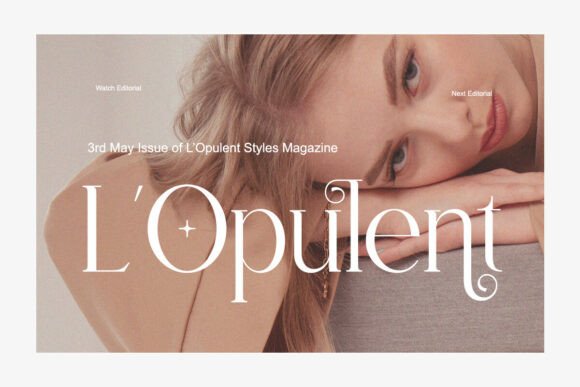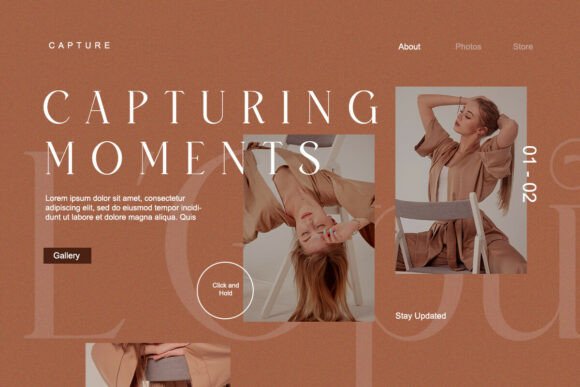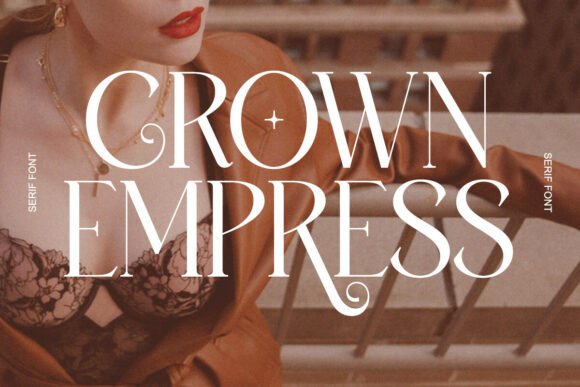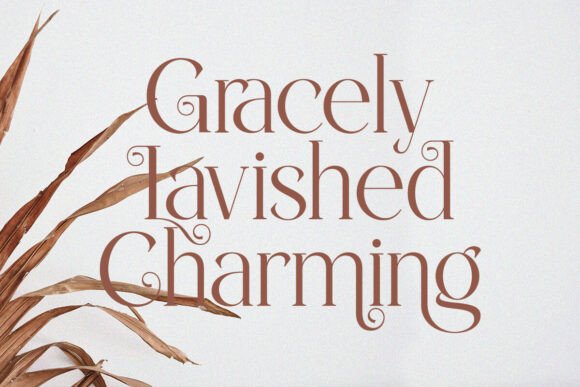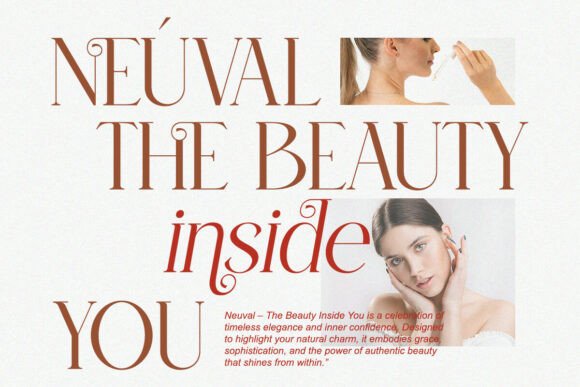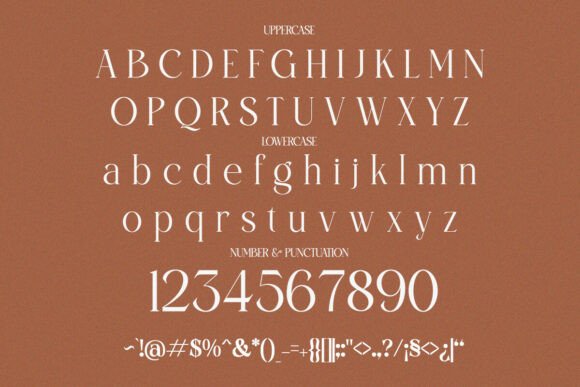
Introducing Bilifer – Modern Luxury Serif Font
In the world of typography, a well-crafted font can elevate a design project from ordinary to extraordinary. For designers and crafters seeking a typeface that exudes elegance, sophistication, and luxury, Bilifer is the perfect solution. This modern luxury serif font is designed to bring a refined and elegant charm to high-end branding and timeless design projects.
A Refined and Elegant Typeface
Bilifer is a masterfully crafted font that boasts sophisticated curves, stylish alternates, and graceful ligatures. Its tall proportions and subtle decorative details make it an ideal choice for editorial layouts, fashion campaigns, lifestyle products, jewelry branding, and upscale packaging. Whether you’re designing a logo, magazine headline, invitation, or web design, Bilifer seamlessly combines classic serif traditions with a contemporary luxurious aesthetic.
Unlimited Creative Freedom
One of the standout features of Bilifer is its versatility. With alternate characters, stylish ligatures, and multilingual support, designers have unlimited creative freedom to experiment with different styles and compositions. This font is perfect for creating high-impact headlines while maintaining readability and a premium visual tone. Whether you’re working on a branding project that demands elegance and authority or a design project that requires a touch of sophistication, Bilifer is the perfect choice.
Crafted for High-End Branding and Timeless Design
Bilifer is specifically designed for high-end branding and timeless design projects. Its luxurious yet modern charm makes it perfect for designers and crafters who want to create stunning visual compositions that exude elegance and sophistication. With Bilifer, you can create logos, magazine headlines, invitations, and web designs that look equally stunning and premium.
Key Features of Bilifer
- Sophisticated curves and stylish alternates: Bilifer’s curves and alternates add a touch of elegance and sophistication to any design project.
- Graceful ligatures: Bilifer’s ligatures provide a smooth and refined look, perfect for high-end branding and design projects.
- Tall proportions and subtle decorative details: Bilifer’s tall proportions and decorative details make it perfect for editorial layouts, fashion campaigns, and upscale packaging.
- Multilingual support: Bilifer supports multiple languages, making it a versatile font for designers who work on international projects.
- Alternate characters and stylish ligatures: Bilifer’s alternate characters and ligatures provide designers with unlimited creative freedom.
Bilifer is perfect for designers and crafters who want to create high-end branding and timeless design projects. Whether you’re working on a logo, magazine headline, invitation, or web design, Bilifer provides the perfect combination of elegance, sophistication, and luxury. Its versatility and creative freedom make it an ideal choice for designers who want to push the boundaries of typography and design.
In conclusion, Bilifer is a modern luxury serif font that is perfect for high-end branding and timeless design projects. Its refined and elegant typeface, sophisticated curves, stylish alternates, and graceful ligatures make it a versatile font that can be used in a variety of design applications. With its unlimited creative freedom, multilingual support, and premium visual tone, Bilifer is an ideal choice for designers and crafters who want to create stunning visual compositions that exude elegance and sophistication.
If your project requires a font that is elegant, sophisticated, and luxurious, look no further than Bilifer. With its exceptional craftsmanship and attention to detail, Bilifer is sure to elevate your design project to new heights.